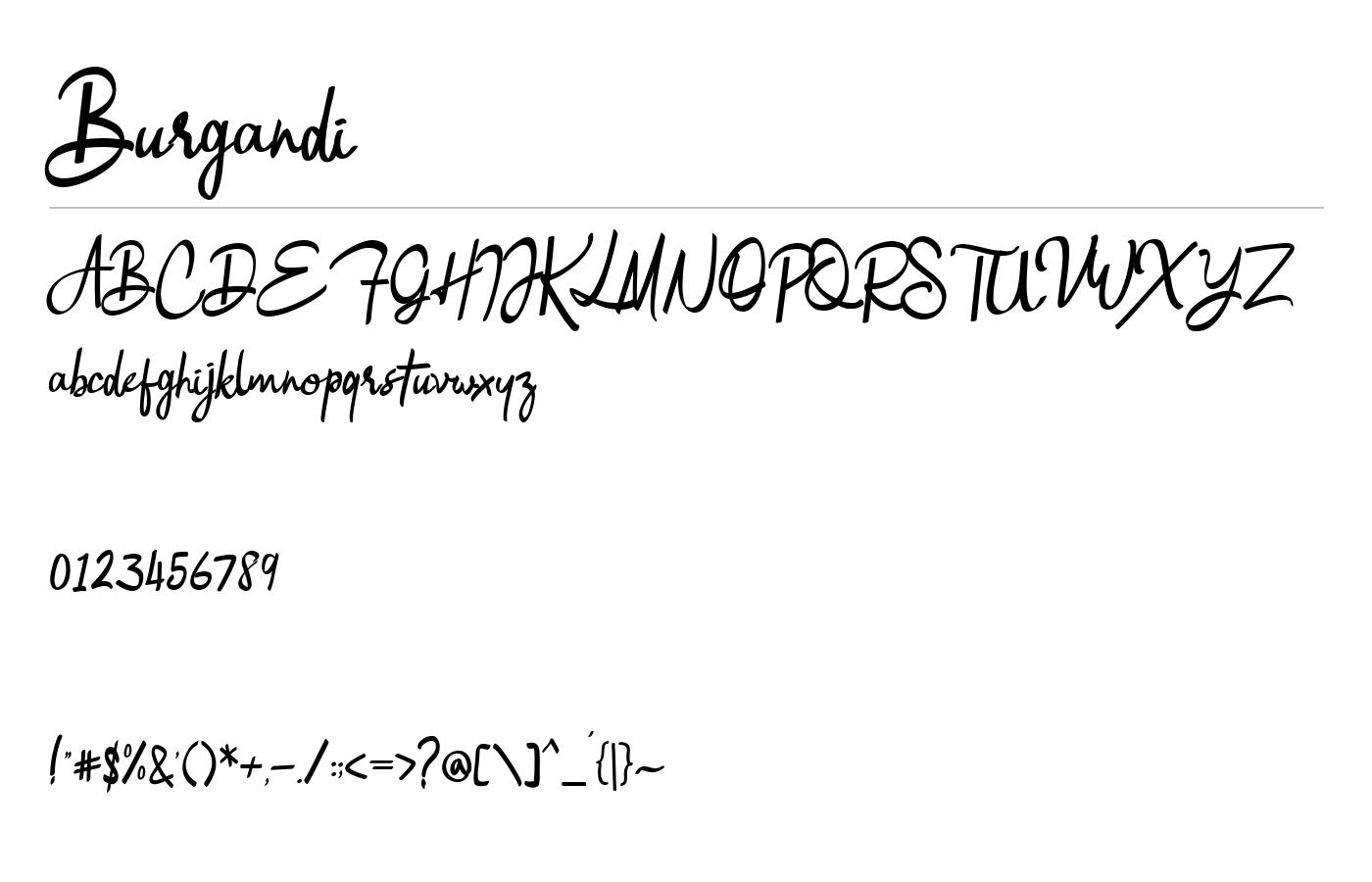
Burgandi is a stylish script font featuring elegant, flowing letterforms with a casual yet refined feel. Its light weight and medium contrast strokes give it a lively, handwritten appearance, making it perfect for creative branding, invitations, and social media designs that seek a personal touch with a modern flair. This font works best in display settings where its graceful curves and unique character shapes can stand out and add personality.
Burgandi Font